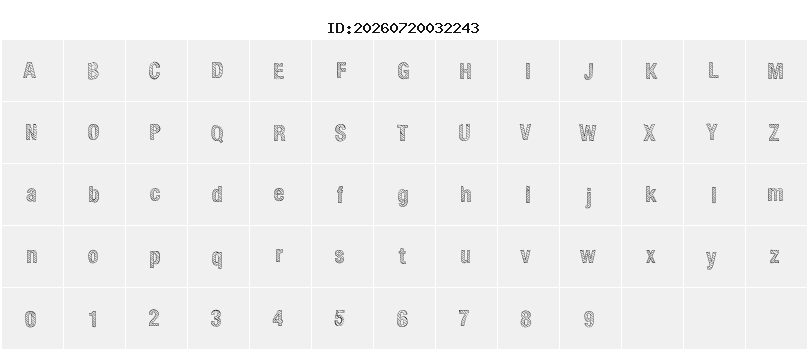
Elliot Preview
About Elliot.ttf
Elliot.ttf is a modern, elegant sans-serif font designed for ultimate readability and visual harmony. Perfect for branding, headlines, web design, and print materials.